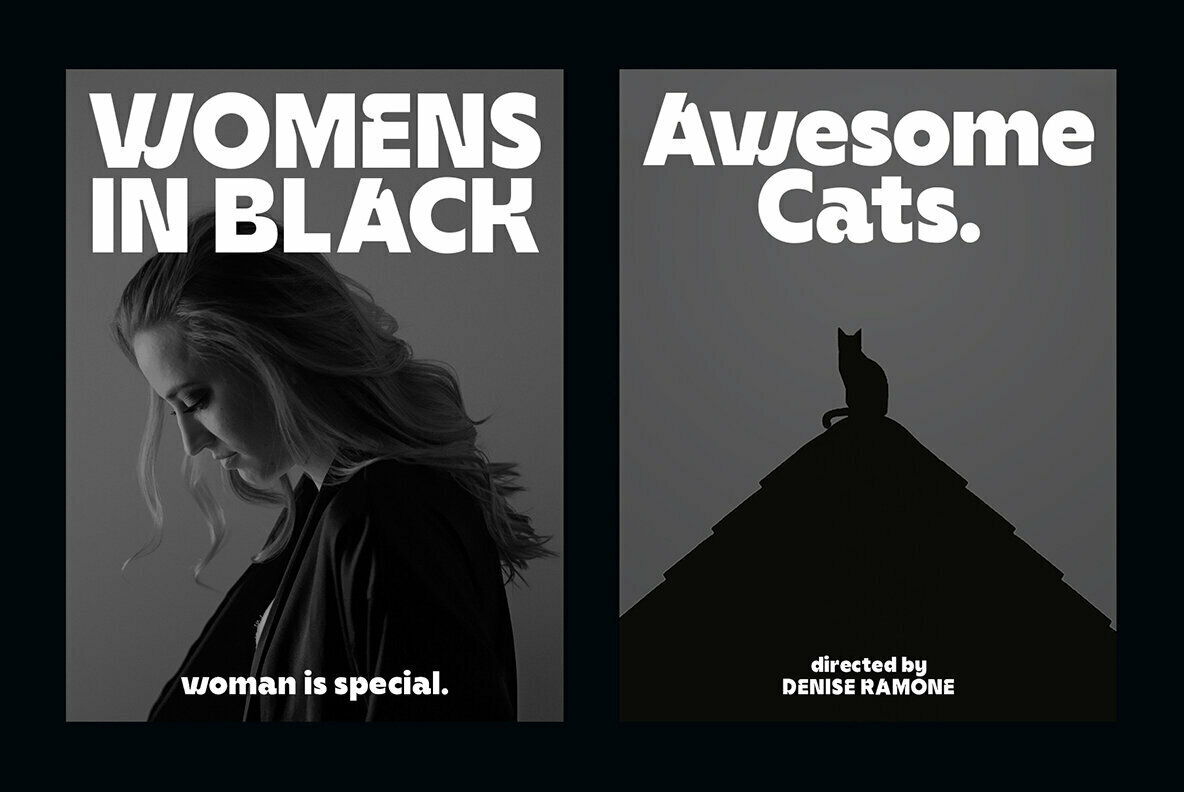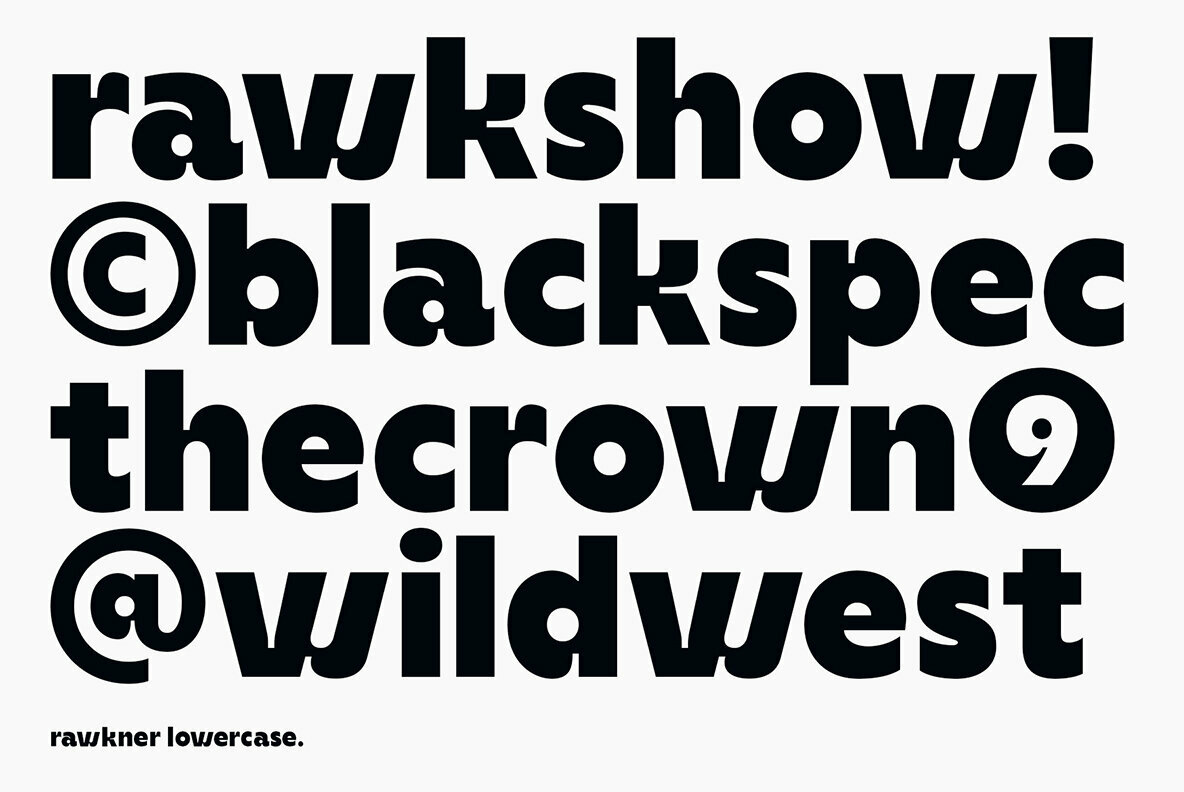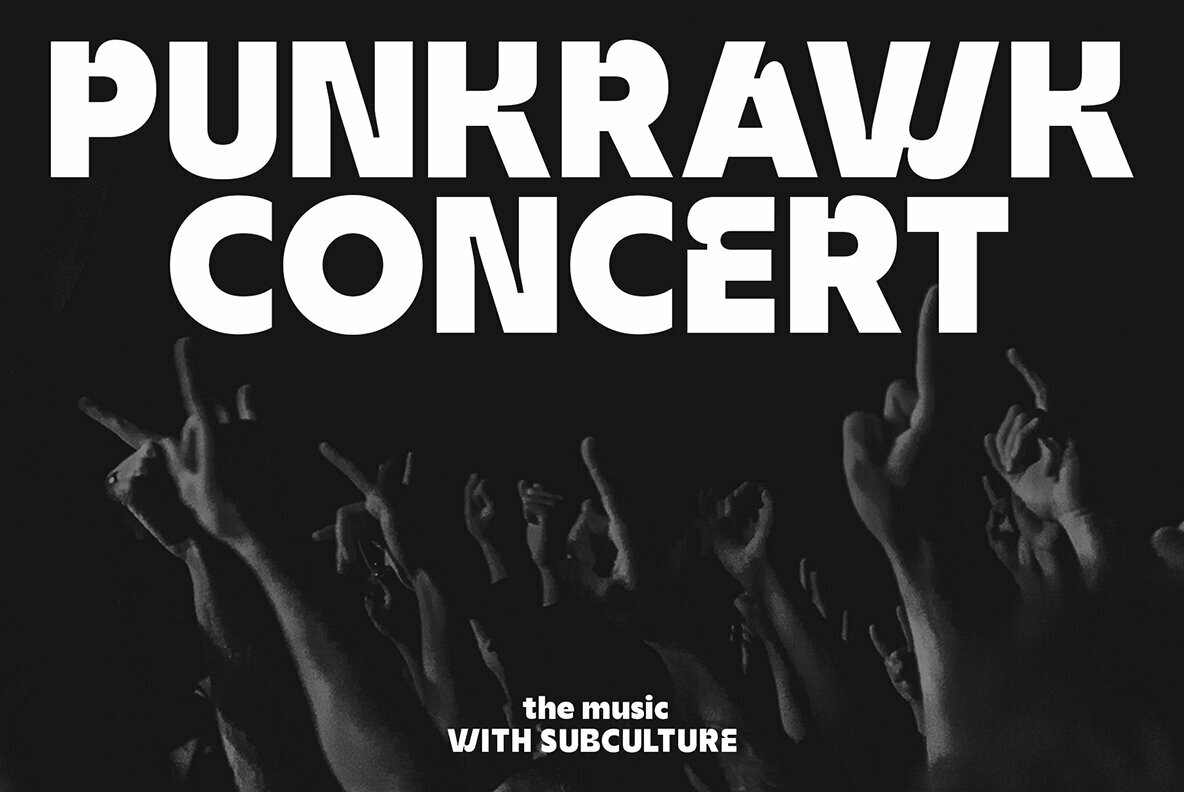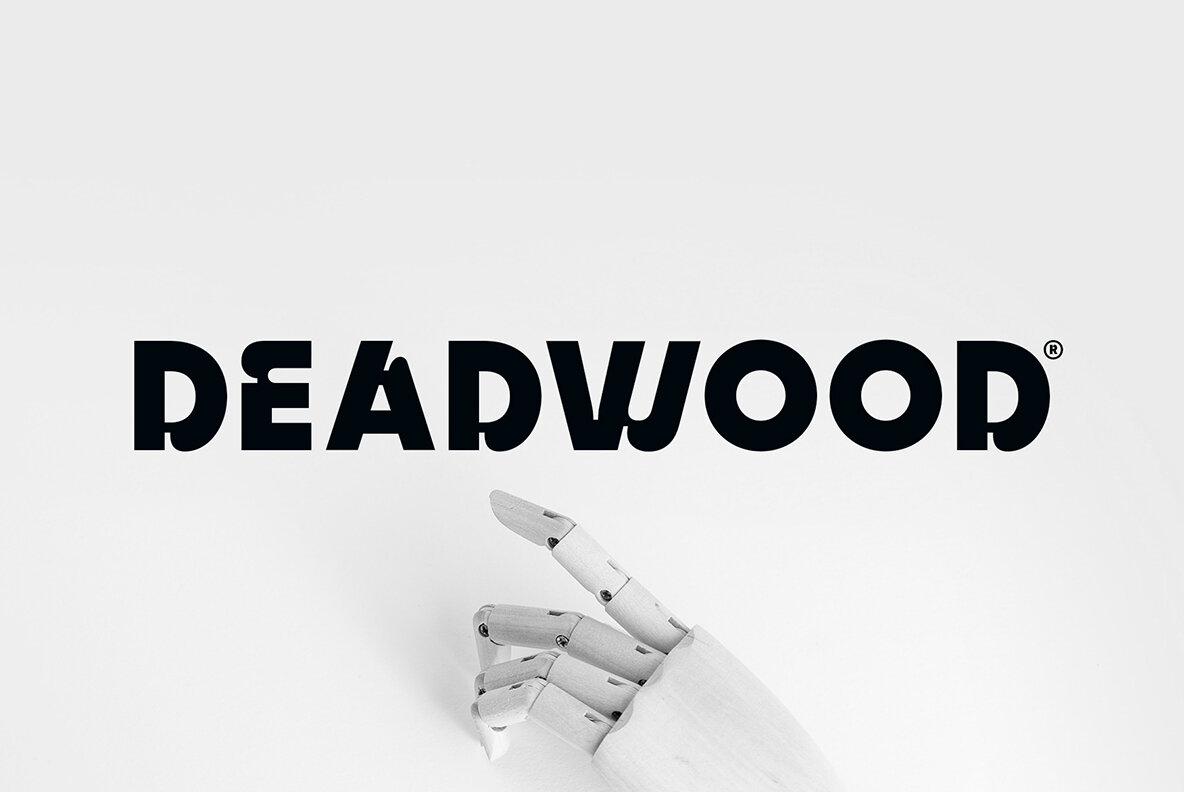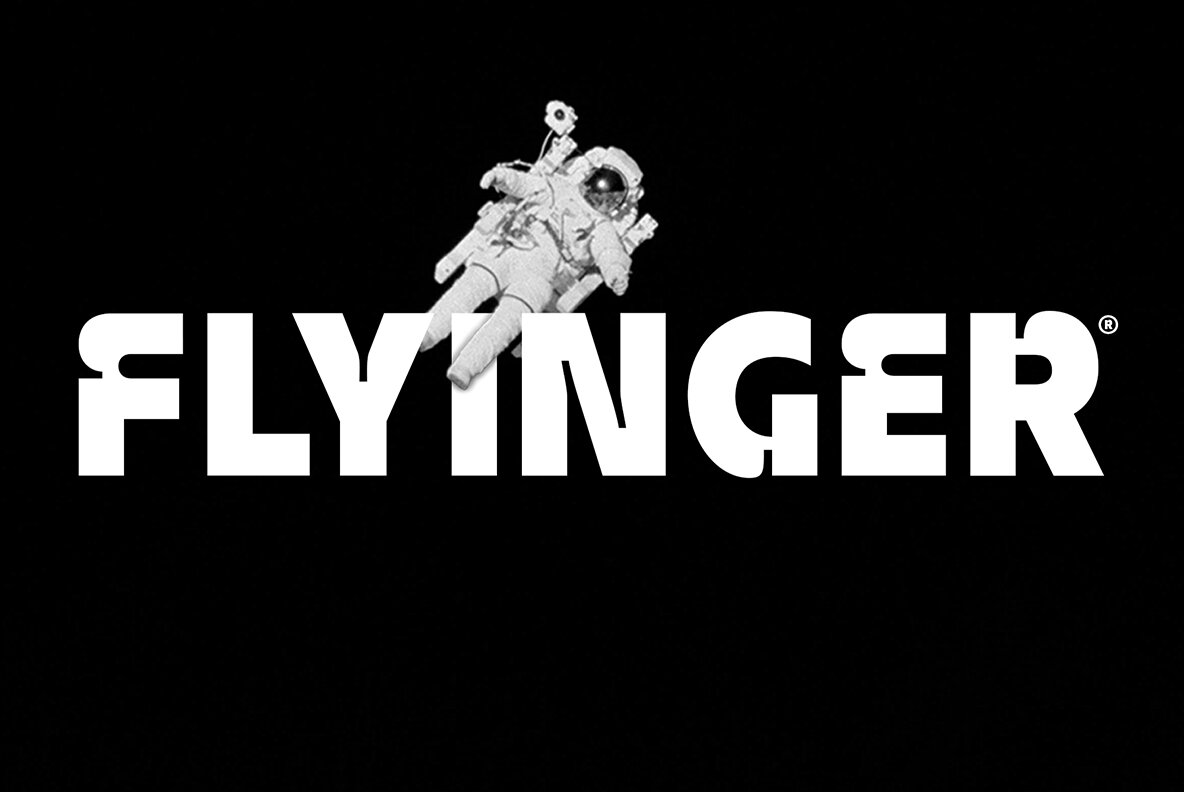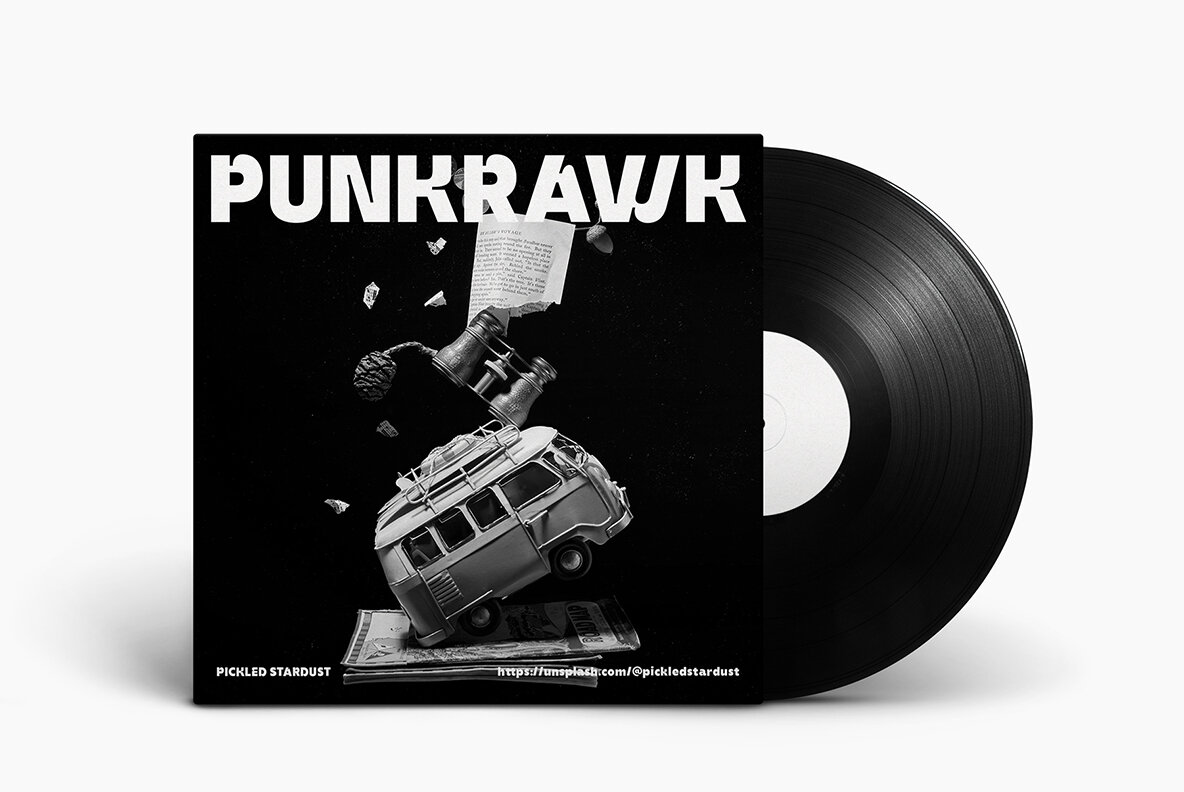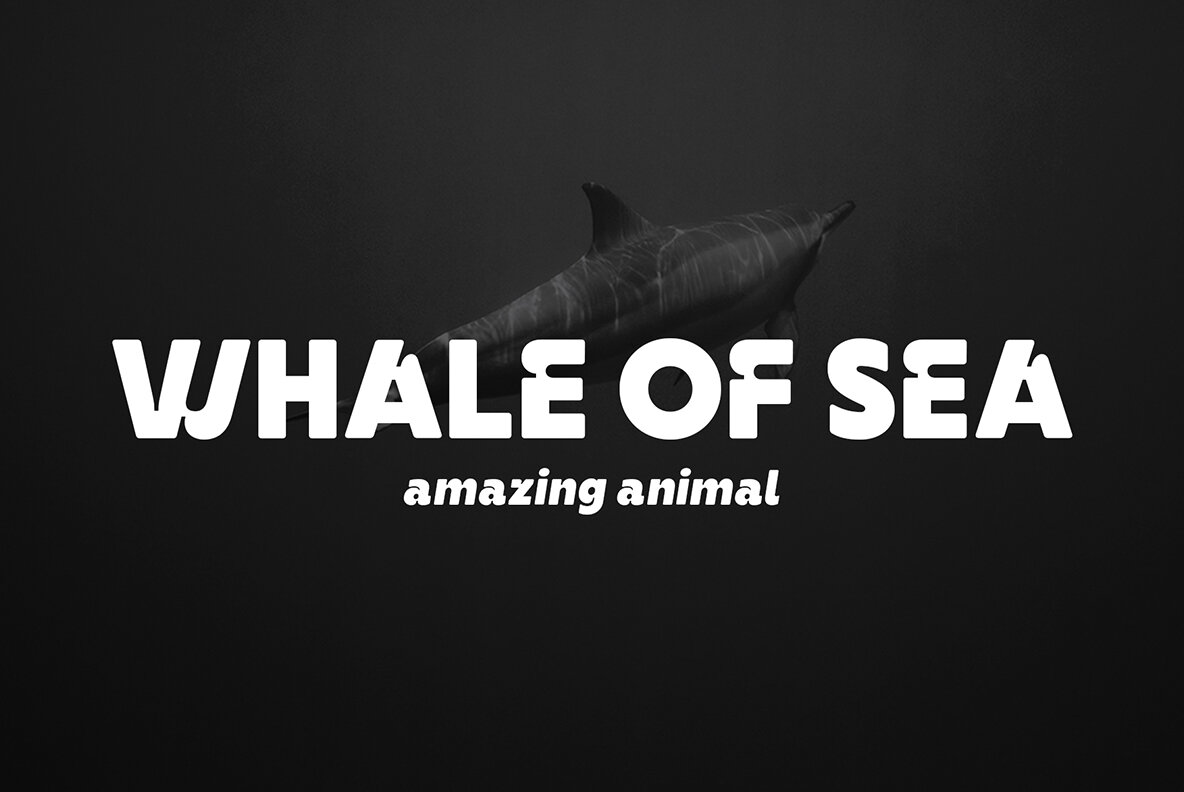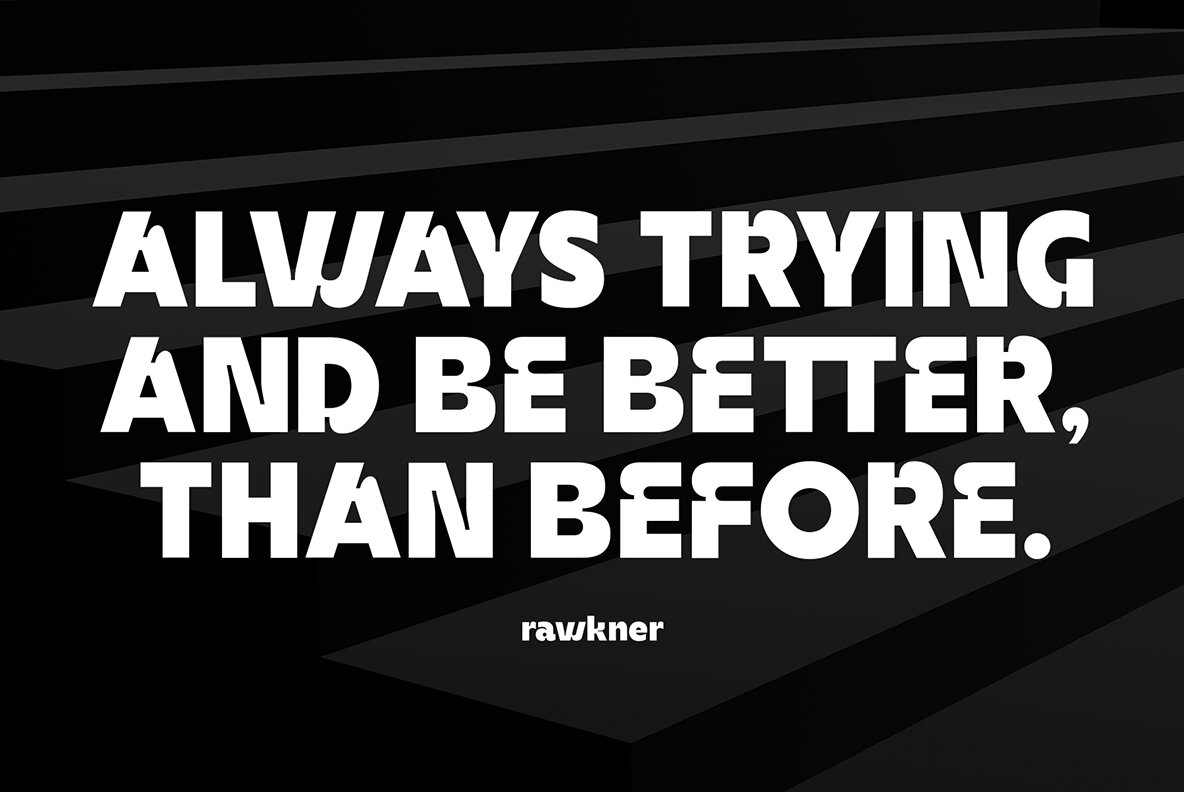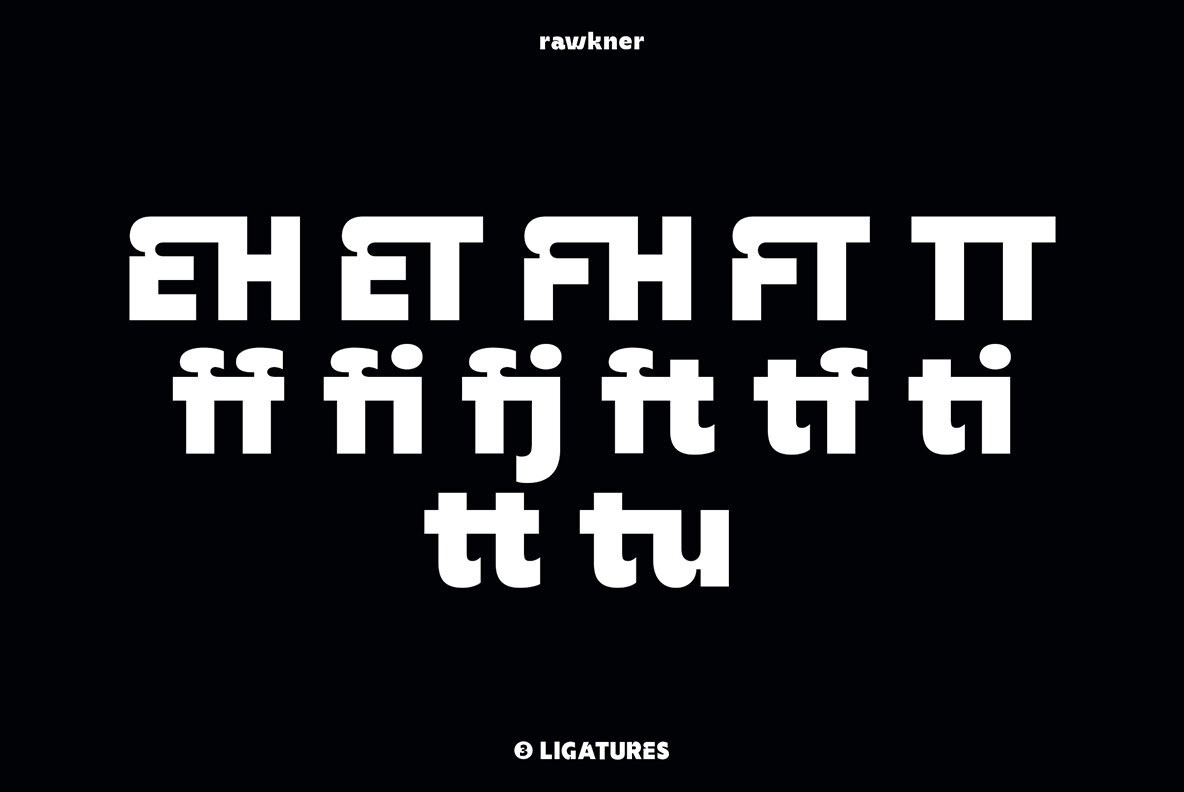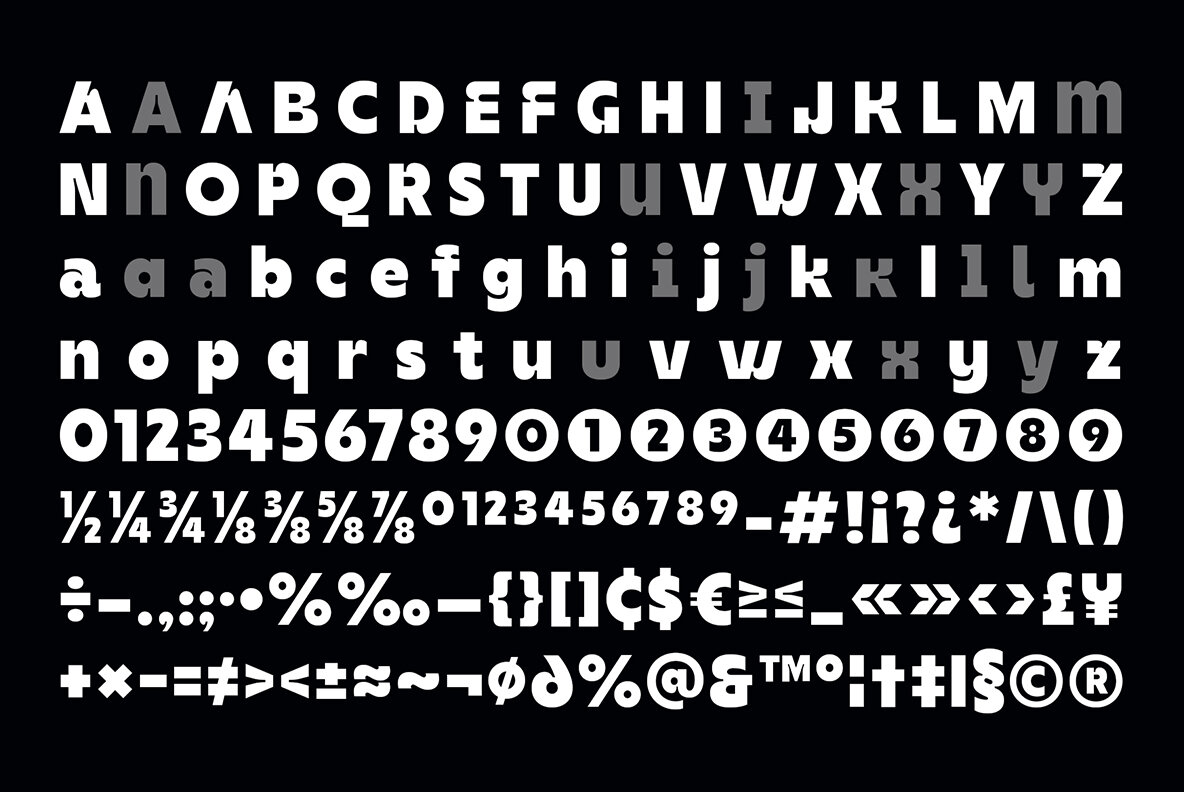
Rawkner Font
Rawkner, a sans serif font, draws inspiration from the unique ink trap concept, redefining typographic elegance with precision. The design journey begins with the distinctive letters W and K, setting the tone for the entire typeface. Available in four diverse styles—regular, oblique, round, and round oblique—Rawkner effortlessly caters to various design needs. Ideal for headlines and subheadlines, Rawkner offers a seamless blend of functionality and aesthetics. It includes alternative glyphs, providing flexibility to align with the specific nuances of your creative vision. The inclusion of both uppercase and lowercase ligatures enhances its versatility, making it a compelling choice for diverse creative projects.Rawkner: Versatile Ink-Trap Inspired Sans Serif